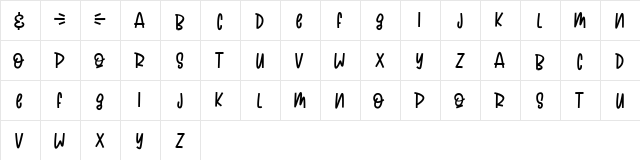
QUIRKYLAND Regular
Design Context for QUIRKYLAND Typeface
QUIRKYLAND is a composed and adaptable typeface that performs quietly and consistently across a wide range of design contexts.